Clean fonts are essential for any designer’s toolkit, offering a crisp and professional look that enhances readability. These legible fonts are designed with simplicity in mind, making them perfect for a variety of design projects, from websites to branding materials. By incorporating clean fonts into your typography choices, you can effectively convey information without distraction, ensuring your message is both impactful and accessible. Moreover, many free fonts available today provide excellent options for professional design work, allowing creators to elevate their projects without breaking the bank. As you explore the world of typography, remember that the right clean font can transform your design and resonate with your audience.
When it comes to selecting the right typeface, minimalist type styles often take precedence due to their clarity and elegance. These typefaces, characterized by straightforward designs and a lack of embellishments, not only improve legibility but also bring a sense of sophistication to various creative endeavors. Alternative terms like streamlined typography or simplified typefaces encapsulate the essence of these clean fonts, making them ideal choices for both digital and print platforms. As you embark on new creative ventures, consider how the right typographical aesthetics can enhance your overall message and design vision.
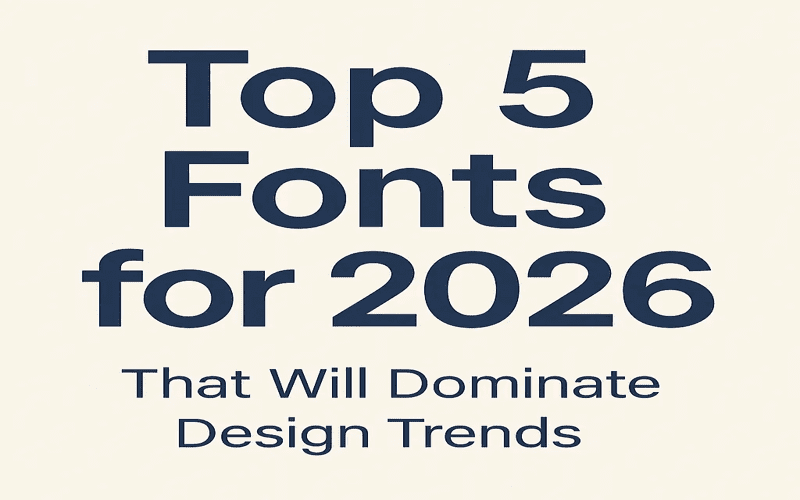
Understanding Clean Fonts
Clean fonts, as the name implies, are designed to offer clarity and precision in their presentation. They possess a straightforward aesthetic that eliminates distractions, allowing your audience to focus on the content rather than the typography. This clarity is a significant reason why clean fonts are so favored in professional settings, ranging from business reports to digital interfaces.
The legibility of clean fonts makes them an ideal choice for various mediums. Whether you’re designing a website, crafting a print ad, or developing a product label, these typefaces ensure that messages are communicated effectively. By selecting a clean font, you align your project with a modern, polished look that enhances readability.
The Benefits of Using Clean Fonts
One of the primary benefits of clean fonts is their versatility. These fonts can seamlessly fit into any design context, whether it be corporate branding, minimalist websites, or artistic projects. Their unfussy nature allows them to work harmoniously with both text and images, strengthening the overall composition of your design.
Moreover, clean fonts are easy to read across different sizes and formats, making them suitable for both digital and print applications. This adaptability not only enhances viewer engagement but also contributes to a professional appearance that can positively impact a brand’s reputation.
Variety of Available Clean Fonts
In the quest for the right clean font, designers can choose from numerous options tailored to diverse needs. From sleek sans-serif types like JUST Sans and Crops Clean Sans Serif to geometric choices like Dense and Gorga Grotesque, there is a font for every project. Each font boasts unique features, ensuring that designers can find precisely what they need for their specific aesthetic.
For instance, fonts like Bitter ht and Alegreya Sans ht offer not only clean lines but also a touch of character, making them perfect for longer texts while maintaining clarity. As you browse through various typefaces, consider not only their aesthetics but also their practical applications to find the perfect fit for your project.
Using Clean Fonts in Different Projects
When it comes to implementing clean fonts in projects, context matters. For professional documents and presentations, fonts like Anson and Norwester work well due to their legibility and strong presence. If your focus is on branding, then typefaces like Qartella and Exo 2.0 can bring a modern twist, helping your brand stand out while remaining approachable.
For tech-related projects, consider using typography like Fairview or Fira Font Family, which can evoke a sense of innovation and forward-thinking. Each project requires careful consideration of font choice to align with your overall design strategy and desired message.
Conclusion: Choosing the Right Clean Font
In conclusion, the journey to find the right clean font for your design projects in 2026 can be both exciting and rewarding. Given the vast array of options, it’s important to assess the needs of your project carefully. Remember, the clean font you select should enhance the overall readability of your content while also embedding a sense of professionalism.
Ultimately, typography is a powerful tool in design. By choosing wisely and considering the characters that resonate with your audience, you can elevate your projects and ensure they communicate effectively. So, explore the vast landscape of free fonts available, and let your creativity flow!
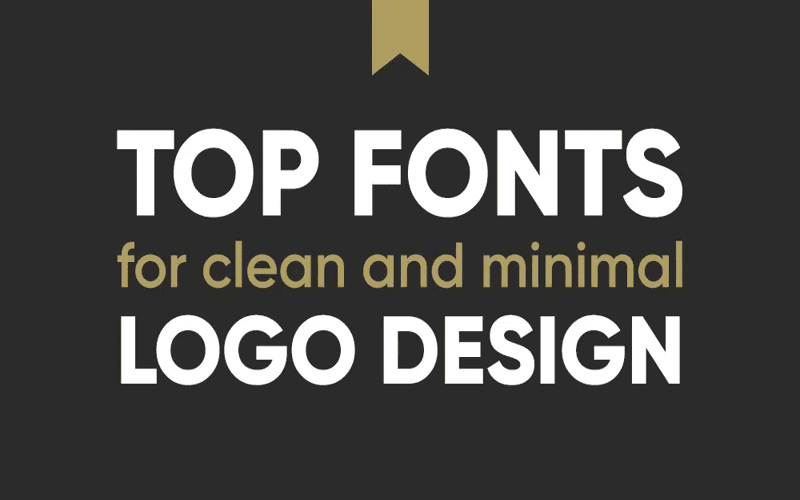
In conclusion, the world of typography offers a wealth of opportunities to enhance design projects through the use of clean fonts. As demonstrated in this collection of over 25 free clean fonts, each typeface brings something unique to the table, ensuring that designers have a diverse toolkit at their disposal. By prioritizing legibility and simplicity, these fonts not only improve readability but also elevate the overall aesthetics of any project. Here are several key takeaways regarding the importance of using clean fonts for professional design projects:
– **Versatility**: Clean fonts are suitable for various applications, from web design to print media, ensuring they meet the needs of diverse projects.
– **Professionalism**: The crisp appearance of clean fonts conveys a sense of professionalism, making them ideal for business-related materials such as resumes and presentations.
– **Accessibility**: By enhancing legibility, clean fonts allow for the effective communication of complex ideas without overwhelming the reader.
Ultimately, choosing the right font can significantly impact the effectiveness of your design projects. With numerous free options available, designers can easily find the perfect clean font that aligns with their project goals and aesthetic preferences. Here are some final considerations to keep in mind when selecting a font:
– **License Awareness**: Always check the licensing agreements of free fonts to ensure they fit your project’s intended use, especially for commercial applications.
– **Typography’s Role**: Remember that typography plays a critical role in user engagement; a thoughtfully chosen font can create a better experience for your audience.
– **Continuous Exploration**: As trends evolve and new fonts emerge, continuously explore and update your font library to stay current with design standards, ensuring that your projects remain fresh and relevant.